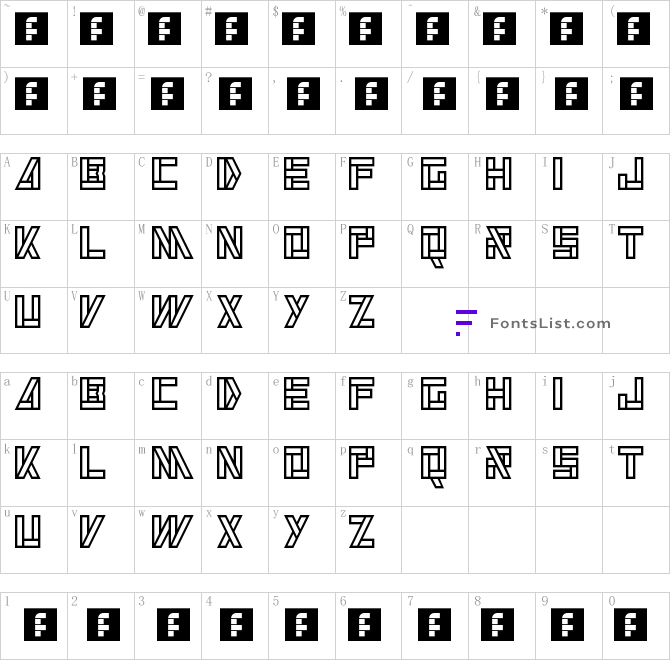
- Font Name:Alkaline
Alkaline-Regular.ttf is a very beautiful artistic font, Alkaline-Regular.ttf is widely used in the design and printing of various books and pictures,Alkaline-Regular.ttf has a strong visual impact,Alkaline-Regular.ttf is a commonly used font in newspapers, magazines and books, and is used in posters, e-commerce Poster design, store design, logo design, font design and other fields.Alkaline-Regular.